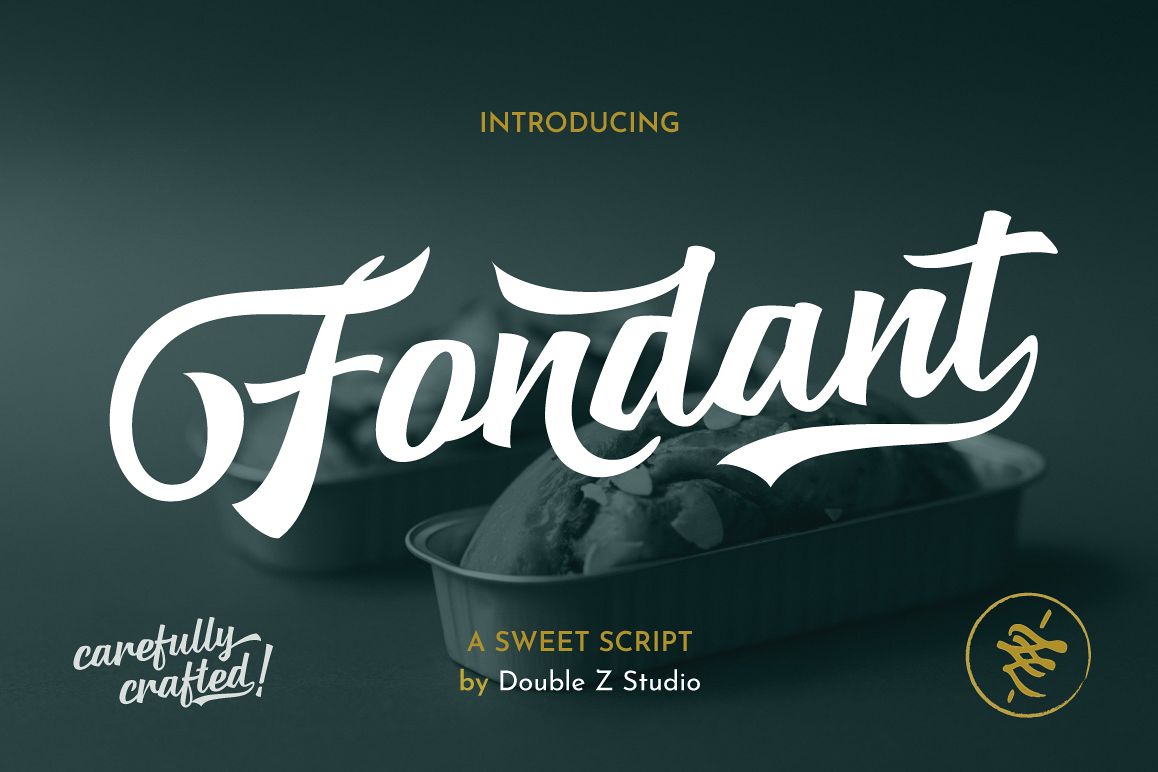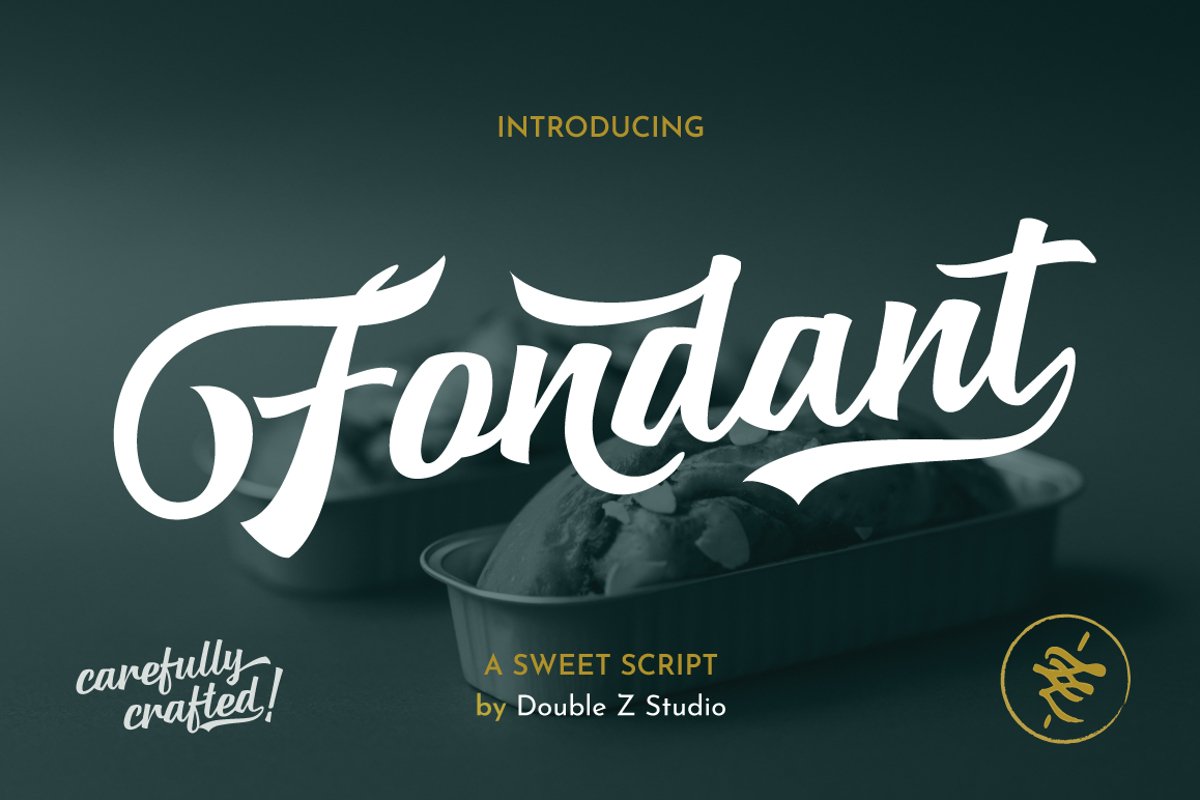
Fondant
Fondant is a sweet yet elegant display script. Classy, casual and vintage feel perfect for designing logo, blog logo, website logo, print ads, book covers, film covers, apparel, cards, logos, posters, etc.
Opentype features gives you more alternatives in designing
• Basic Latin A-Z and a-z
• Symbols
• Stylistic Set
• Kerning
• PUA Encoding